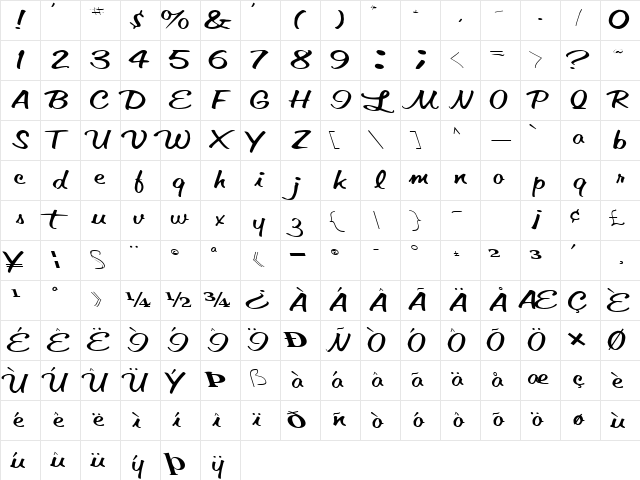
Complete Wheeler Regular glyph index. Displaying only characters natively supported by Wheeler Regular font.
Wheeler is a composed and adaptable typeface that performs quietly and consistently across a wide range of design contexts.